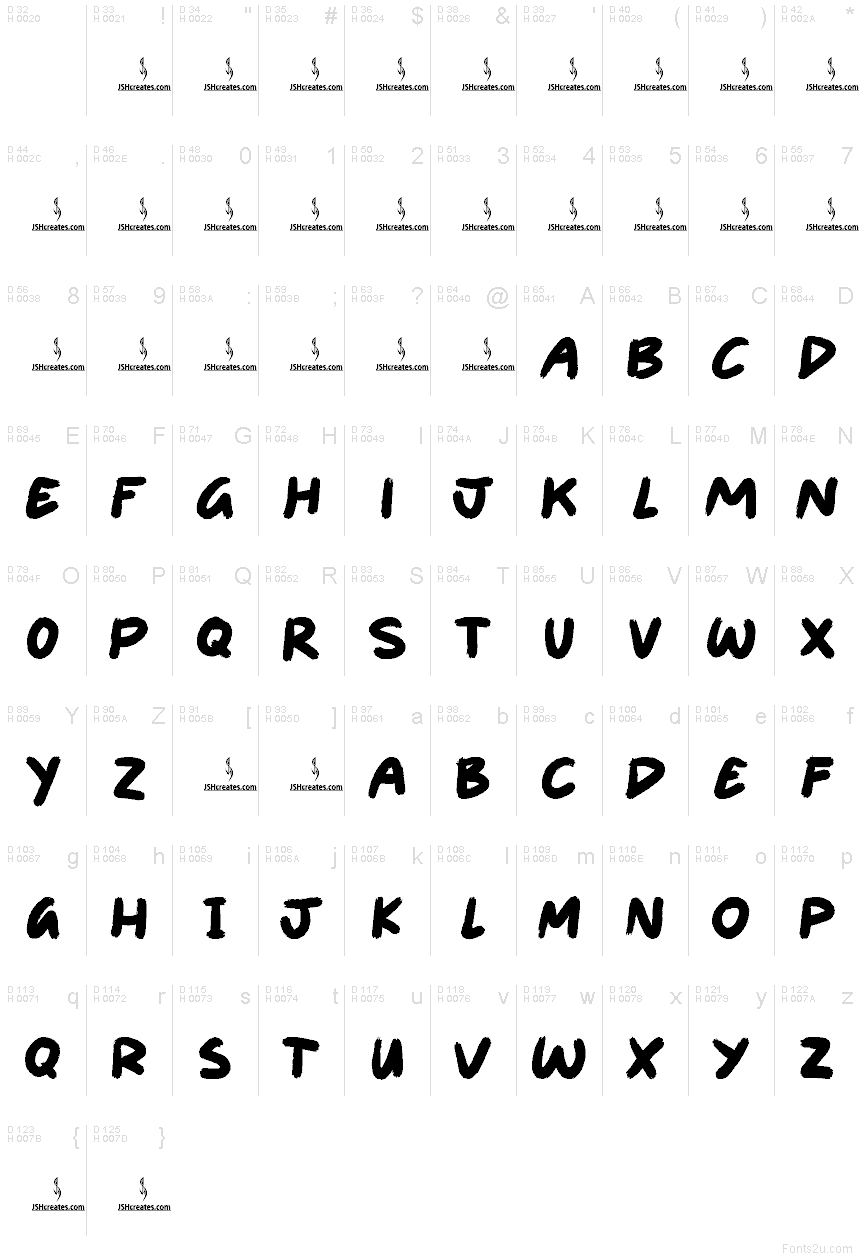
Everyone and Anyone
Everyone and Anyone font by JSH creates is a bold brush typeface that marries retro inspiration with modern flair. Energetic and expressive, this font commands attention with its dynamic strokes and vivid presence, making it ideal for eye-catching designs.
This free brush font suits branding projects, streetwear designs, posters, album covers, product packaging, book covers, logos, magazines, fashion campaigns, advertisements, printed quotes or any creative project that needs a daring touch.